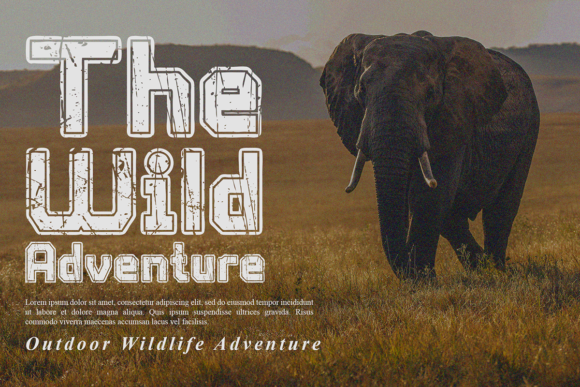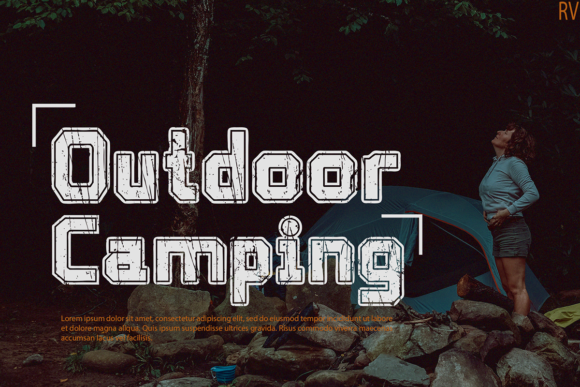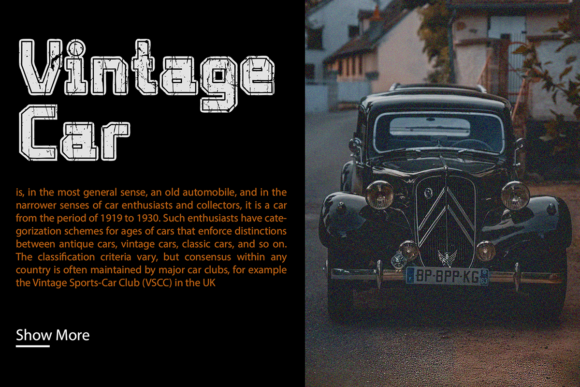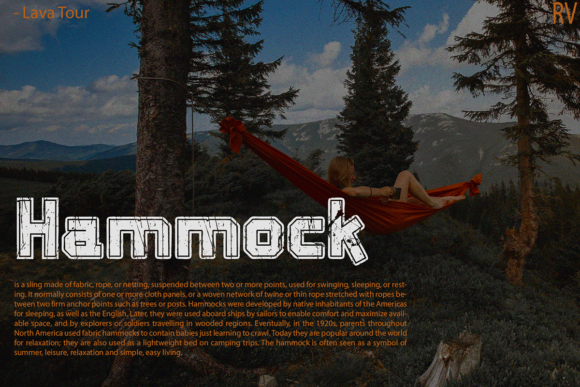
The Perfect Score: Unlocking the Power of American Sporty Font
Remember that moment when you finally landed a major design project, and you knew exactly the font to use – the one that screams ‘win’ and ‘champion’? For many designers, that moment is all about the perfect blend of style, sophistication, and a dash of vintage flair. And that’s exactly what American Sporty Font delivers – a bold and impressive display font that’s sure to make your designs stand out from the crowd.
Whether you’re creating apparel designs, banners, or sporting event advertisements, American Sporty Font is the perfect choice for making a lasting impression. Its cool, vintage feel is not only eye-catching but also timeless, making it a valuable asset for any designer looking to elevate their work. With American Sporty Font, you can add a touch of American spirit to your designs and make them truly unforgettable.
American Sporty Font Key Features
- Font Family: American Sporty is a modern, bold font designed for sports and action-related themes. It’s a sans-serif font with a sporty and energetic feel.
- Character Set: The font includes a wide range of characters, including uppercase and lowercase letters, numbers, and punctuation marks, making it suitable for both body text and display purposes.
- Unique Characteristics: American Sporty Font features a distinctive, bold design with a sporty feel, making it perfect for sports-related projects, action movies, and energetic advertising campaigns.
Designer Review: American Sporty Font
Overall, I think American Sporty Font is a solid choice for sports-related designs, but it has its limitations. ✨ Let’s start with the positives:
- The font is super bold and eye-catching, perfect for headlines and titles.
- It’s super versatile and can be used in a variety of sports-related designs, from football to basketball.
- The font has a strong, energetic feel that’s perfect for conveying a sense of excitement and competition.
However, there are some limitations to keep in mind: ⚠️
- The font may be too bold for smaller text sizes, making it difficult to read.
- It may not be the best choice for designs that require a more subtle or elegant look.
- The font’s boldness can be overwhelming in certain contexts, so be sure to balance it with other design elements.
Overall, I’d say American Sporty Font is a great choice for sports-related designs that need a bold, attention-grabbing look. However, it’s not a one-size-fits-all solution, and you’ll need to use it judiciously to get the best results.
The “American Sporty Font” is perfect for creating a bold and energetic look for sports-related designs, such as:
- Sport team logos and branding
- Sports-themed posters and flyers
- Sports equipment and apparel designs
Arial Black is a sans-serif font known for its bold and modern appearance. It’s often used in headings and titles to create a sense of drama and emphasis. When to use: Headings, titles, and captions where a strong, modern look is desired. Comparison: American Sporty Font is more casual and energetic, while Arial Black is more formal and professional.
Impact is a sans-serif font designed to be highly legible in large point sizes. It’s often used in titles, headings, and other display text where a bold, attention-grabbing look is desired. When to use: Titles, headings, and display text where a bold, dramatic look is desired. Comparison: American Sporty Font is more playful and informal, while Impact is more serious and attention-grabbing.
Bauhaus is a sans-serif font known for its geometric, modern design. It’s often used in headings and titles to create a sense of sophistication and elegance. When to use: Headings, titles, and captions where a modern, sophisticated look is desired. Comparison: American Sporty Font is more casual and energetic, while Bauhaus is more refined and elegant.